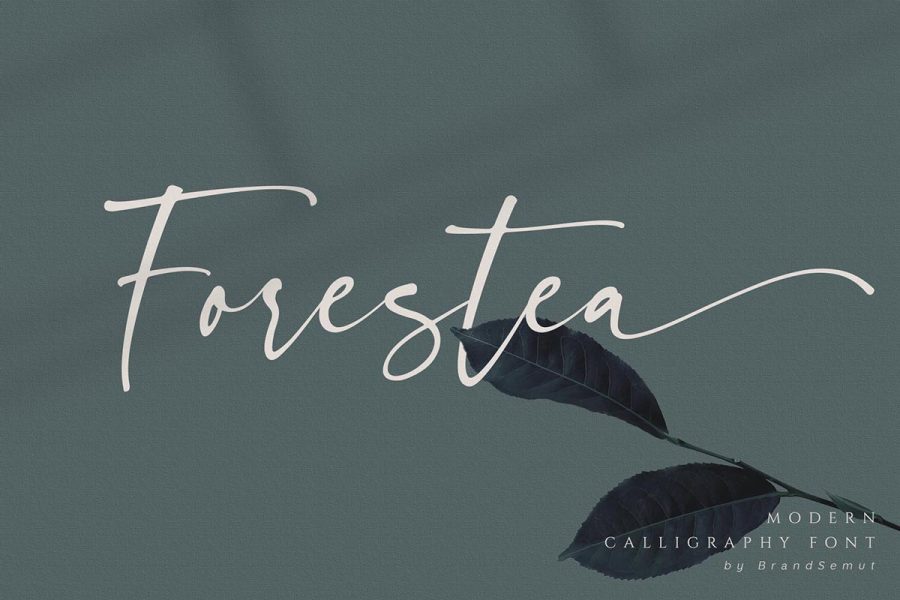
Free Demo Forestea Classy Script Font
Free Demo Forestea Classy Script Font is a modern calligraphy font. It is available with awesome features which are ligatures, alternates, beginning and ending swashes, numbers, and punctuation. Also, it is available for multilingual that will help you to use it in your mother-tongue language as well. This font has a smooth texture that will fit your needs. This awesome free font comes with two format files which are OTF and TTF that you can install on your devices. As usual, this font is coming with a personal use license, but you can get more licenses by purchasing it first.